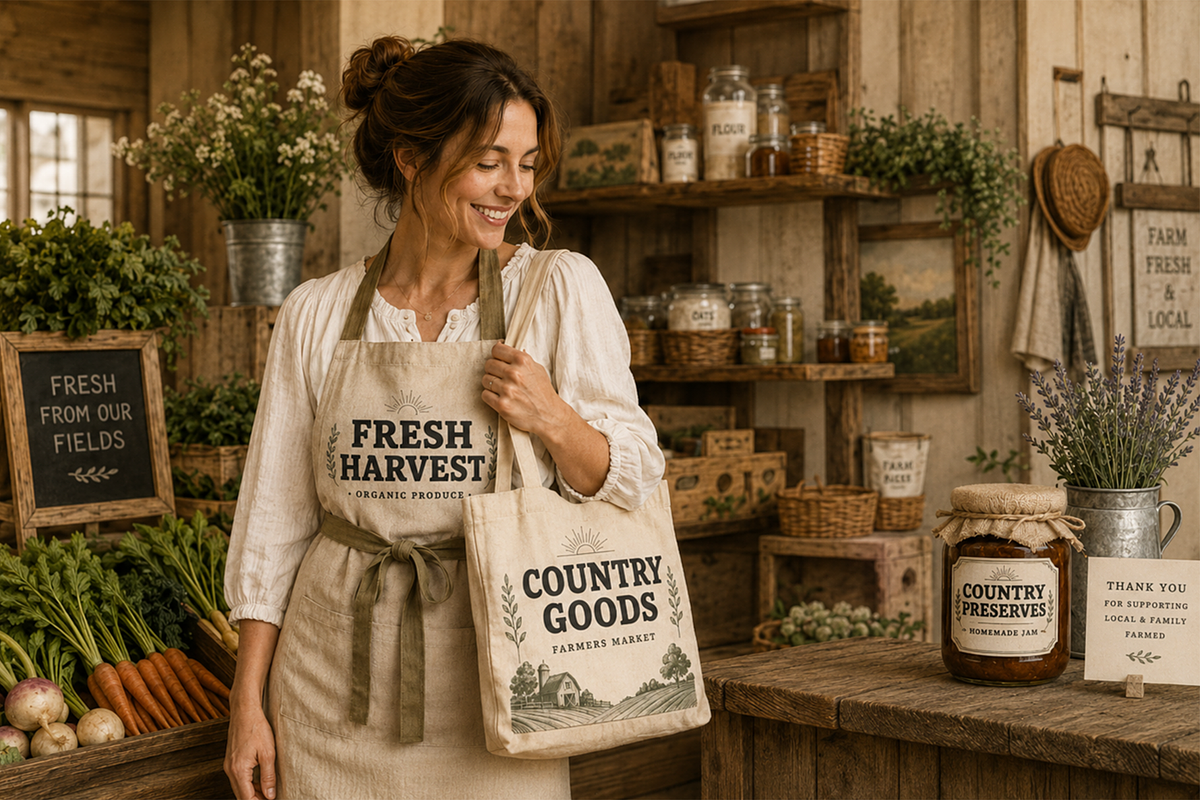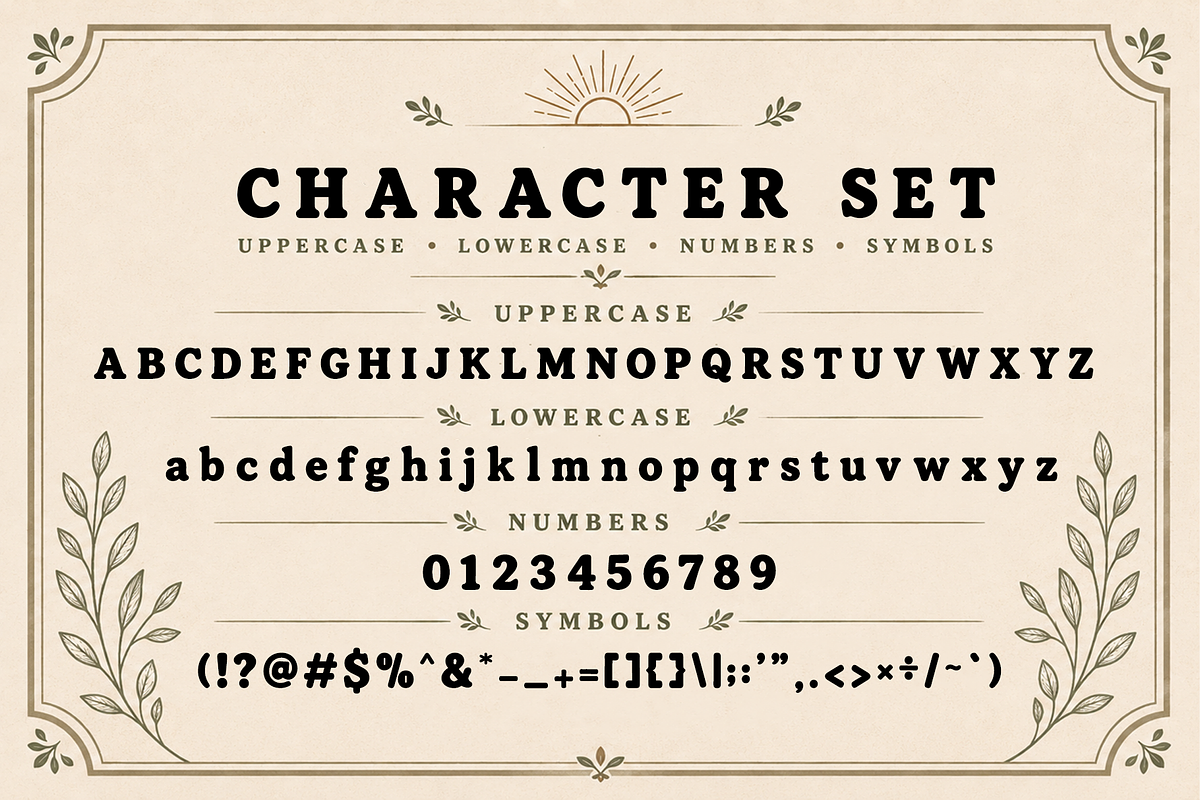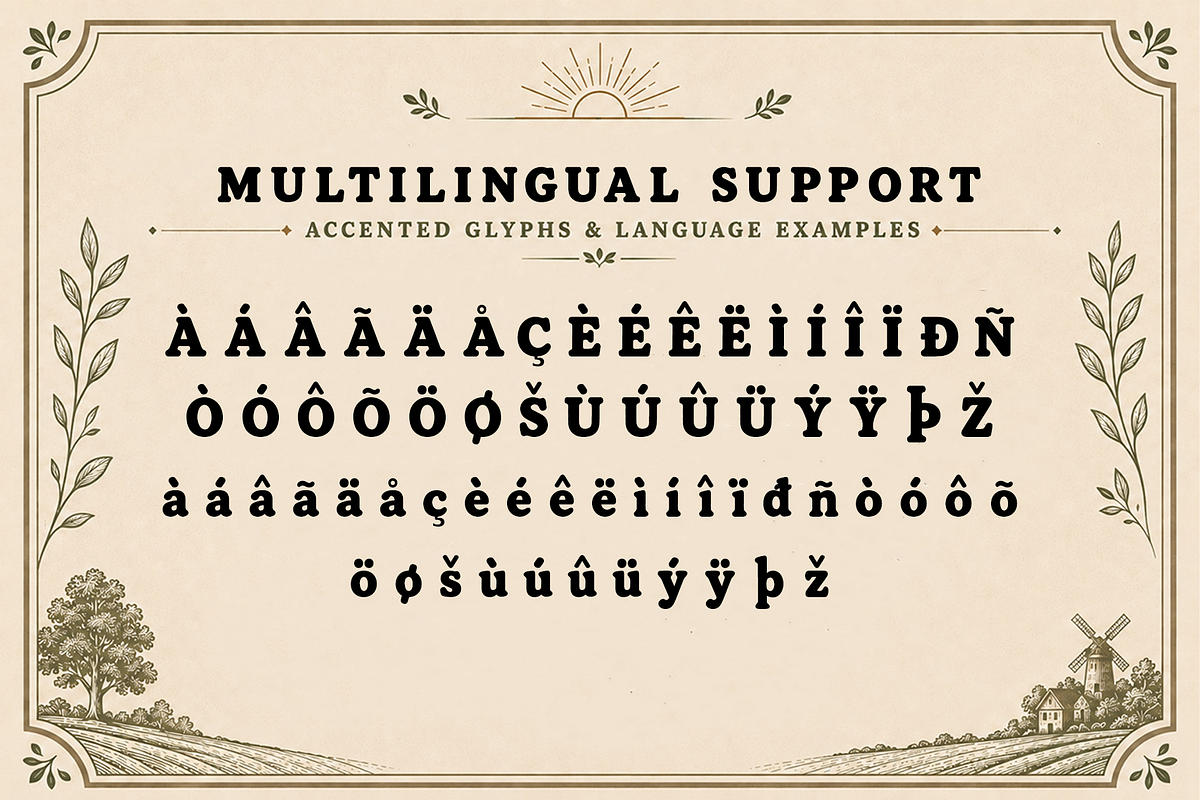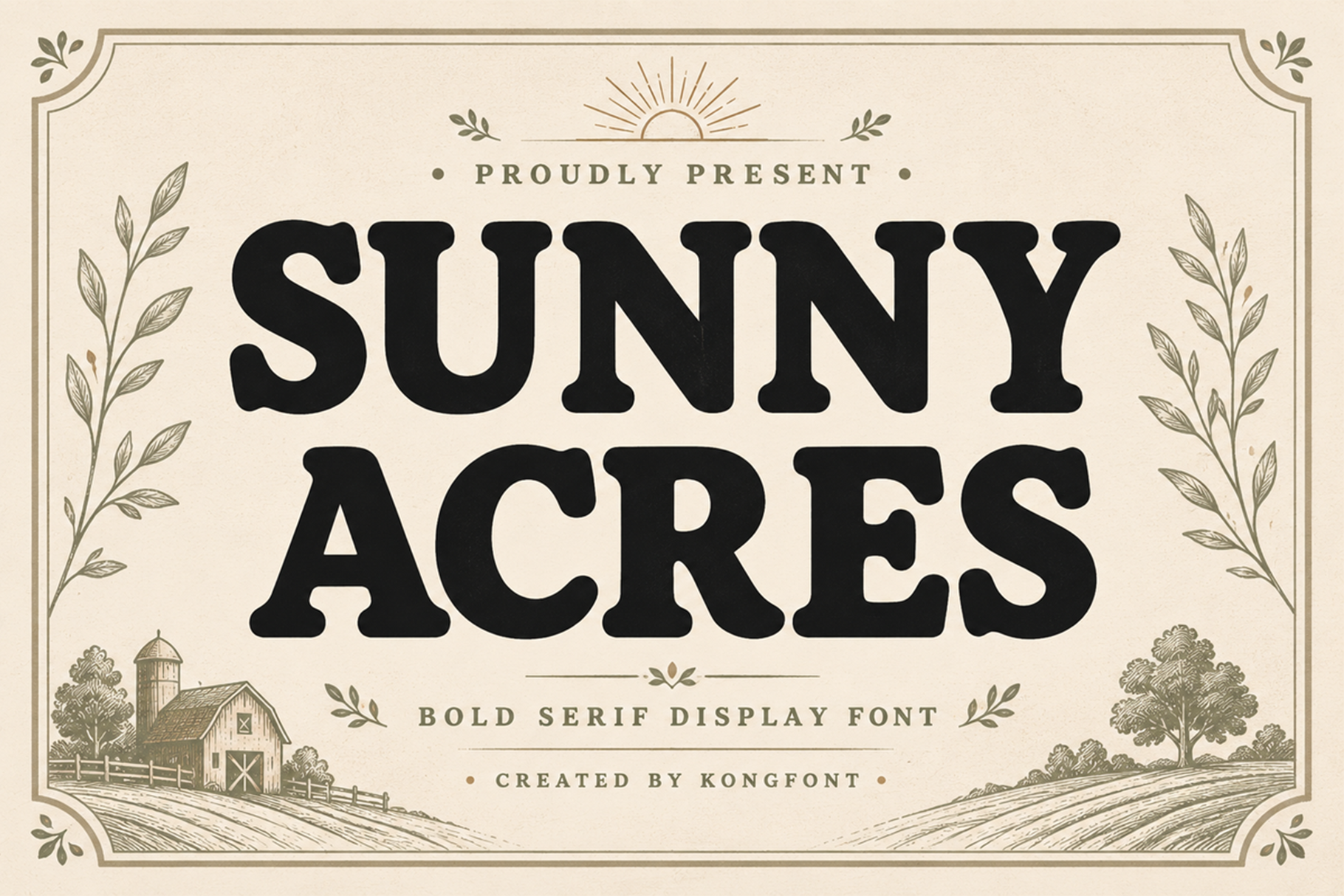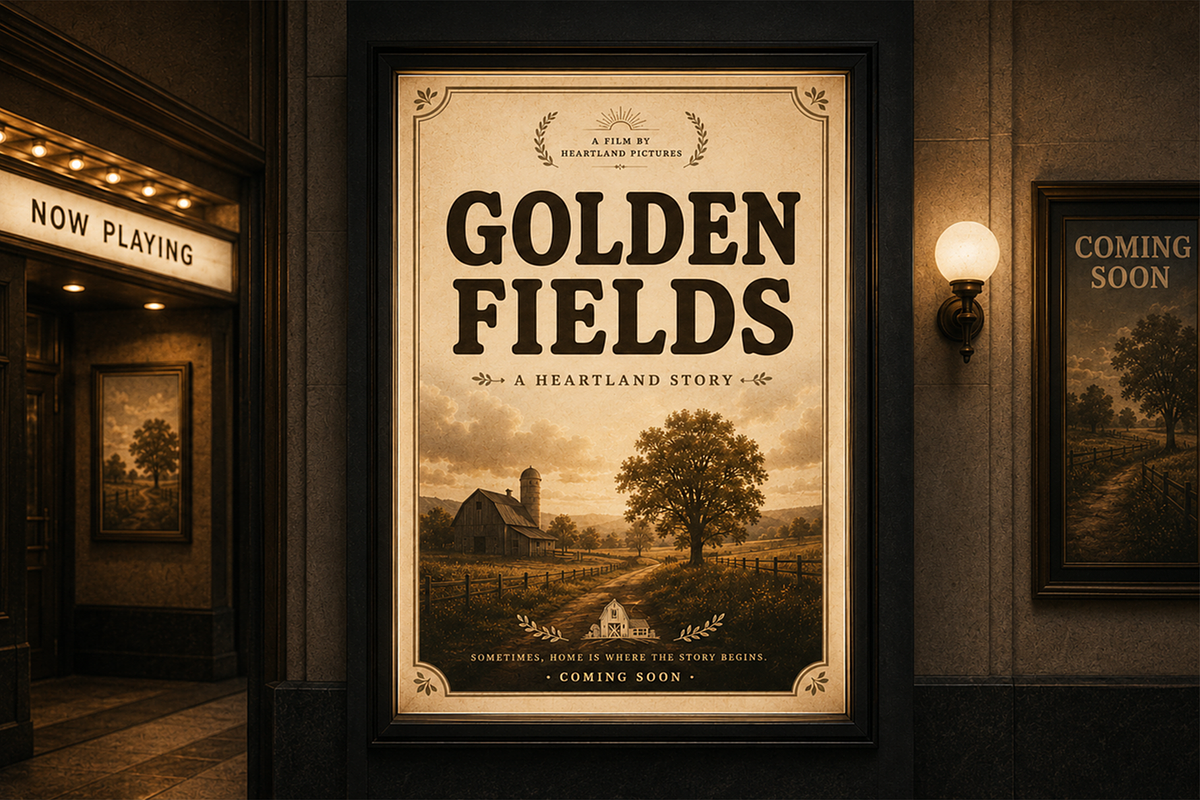
Sunny Acres - Bold Serif Font
Sunny Acres - Bold Serif Display Font
Introducing Sunny Acres, a bold serif display font inspired by the peaceful beauty of country living, rustic farmhouses, and vintage harvest traditions. Designed with strong letterforms and soft rounded serifs, Sunny Acres blends classic elegance with a warm, welcoming personality, making it an excellent choice for designs that celebrate nature, simplicity, and handcrafted charm.
Perfect for farmhouse branding, organic product packaging, food labels, farmers' markets, country weddings, restaurant menus, logos, book covers, home décor, signage, and editorial designs, Sunny Acres offers outstanding readability while maintaining a distinctive vintage inspired character. The font includes uppercase and lowercase letters, numbers, punctuation, multilingual support, and essential symbols, providing everything you need for professional creative projects.